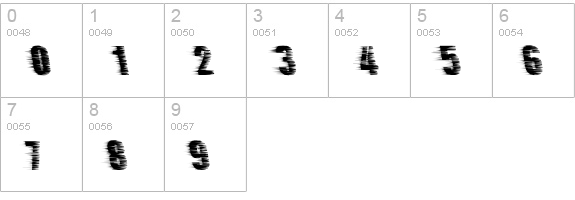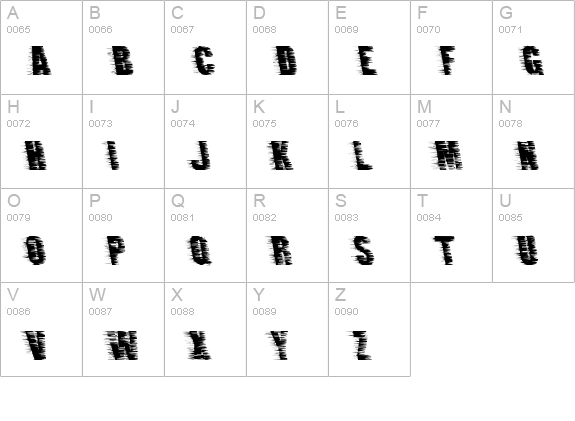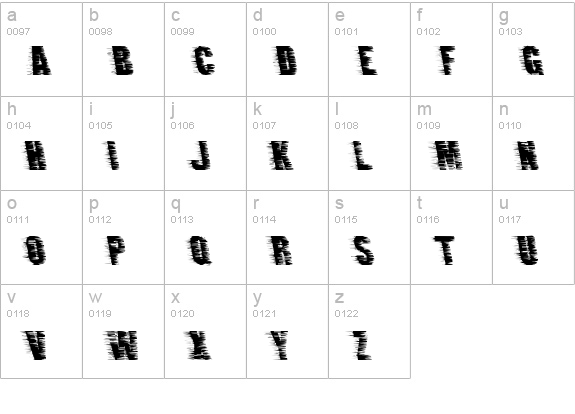
Ground Zero Font Details
Ground Zero is a bold and eye-catching font that exudes a sense of strength and modernity. Its sharp angles and robust letterforms make it perfect for making a statement in headlines, logos, and branding materials. Despite its edgy appearance, Ground Zero is surprisingly versatile and can be used in a variety of design projects. What sets Ground Zero apart is not only its striking design, but also the fact that it is available for free download at FontsMarket.com. This means that designers and creatives can access this powerful font without any cost, making it an accessible and valuable addition to their font library. Whether you're looking to add a touch of boldness to your designs or want to make a strong visual impact, Ground Zero is the perfect choice. Download it for free today and unleash the power of this dynamic font in your projects.